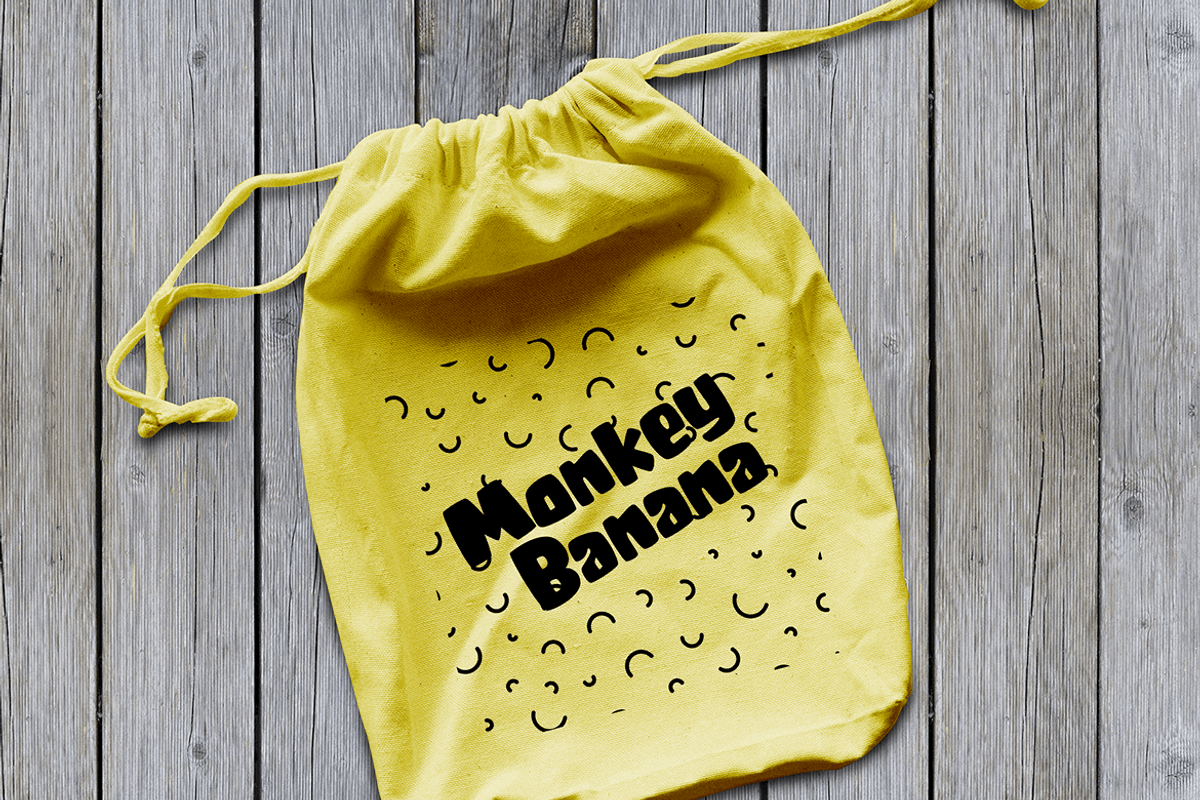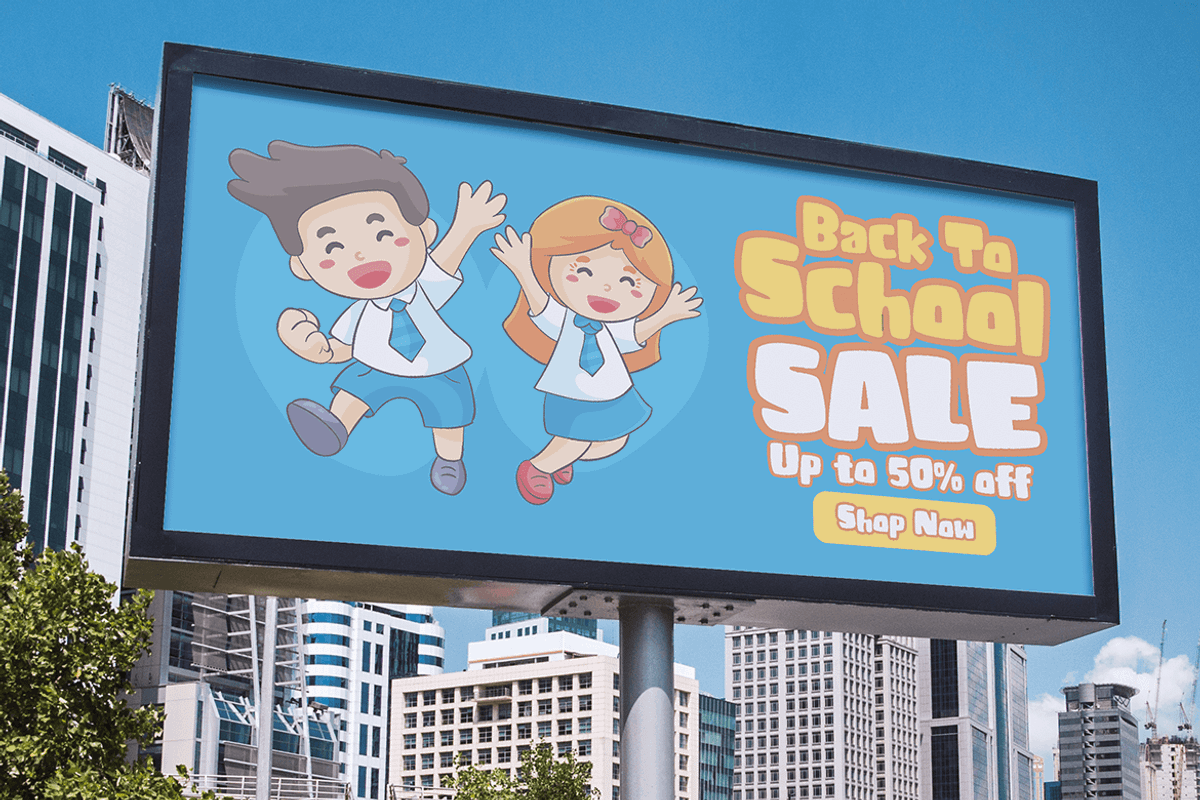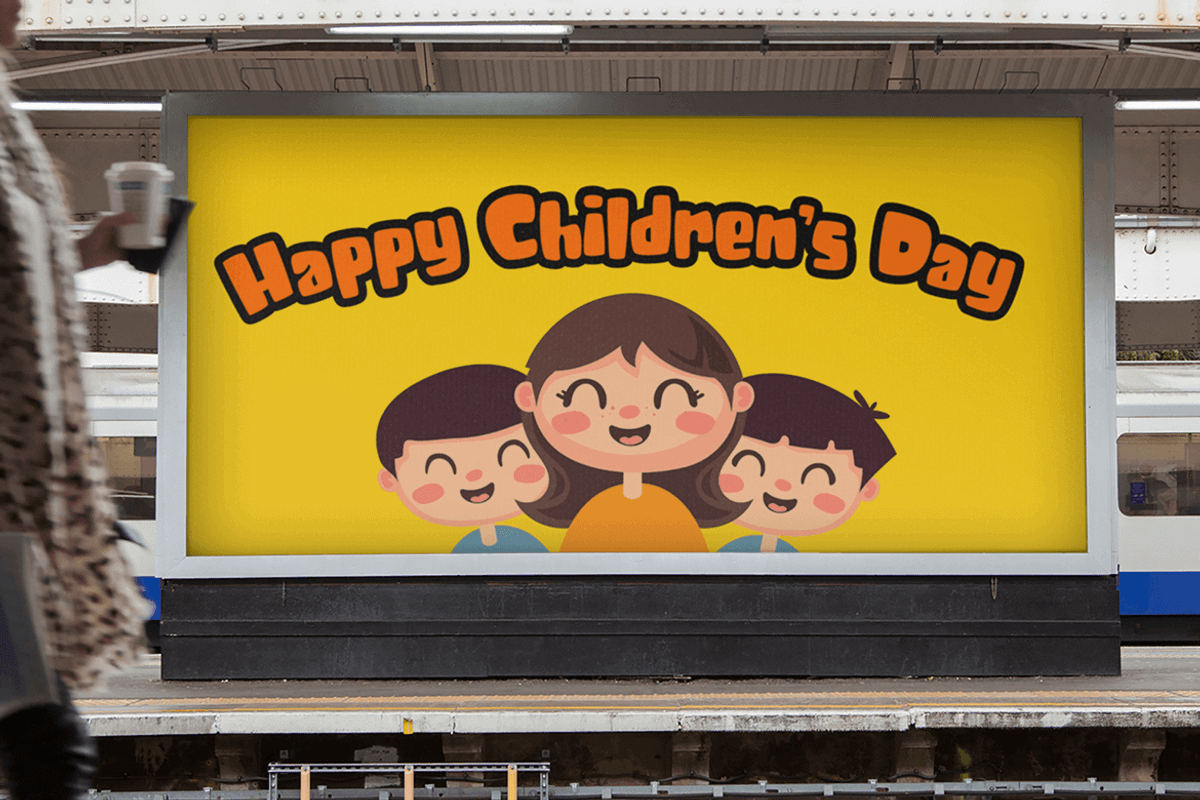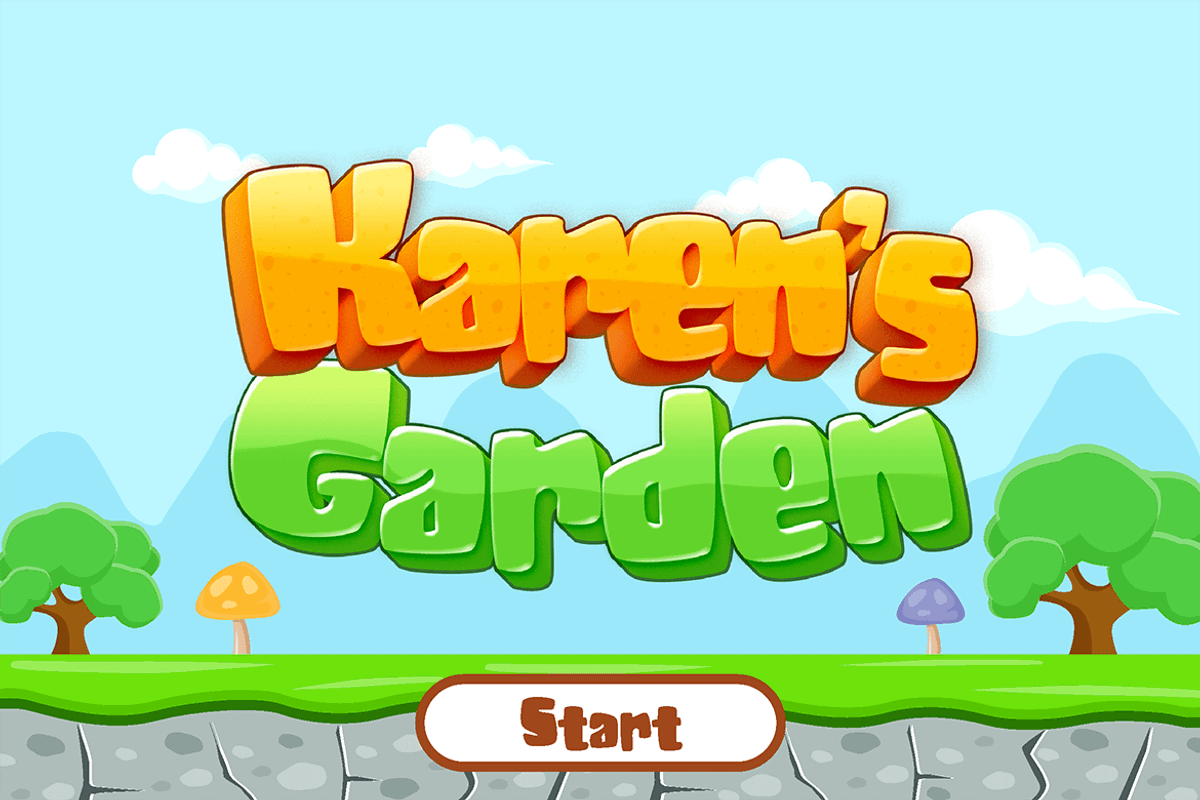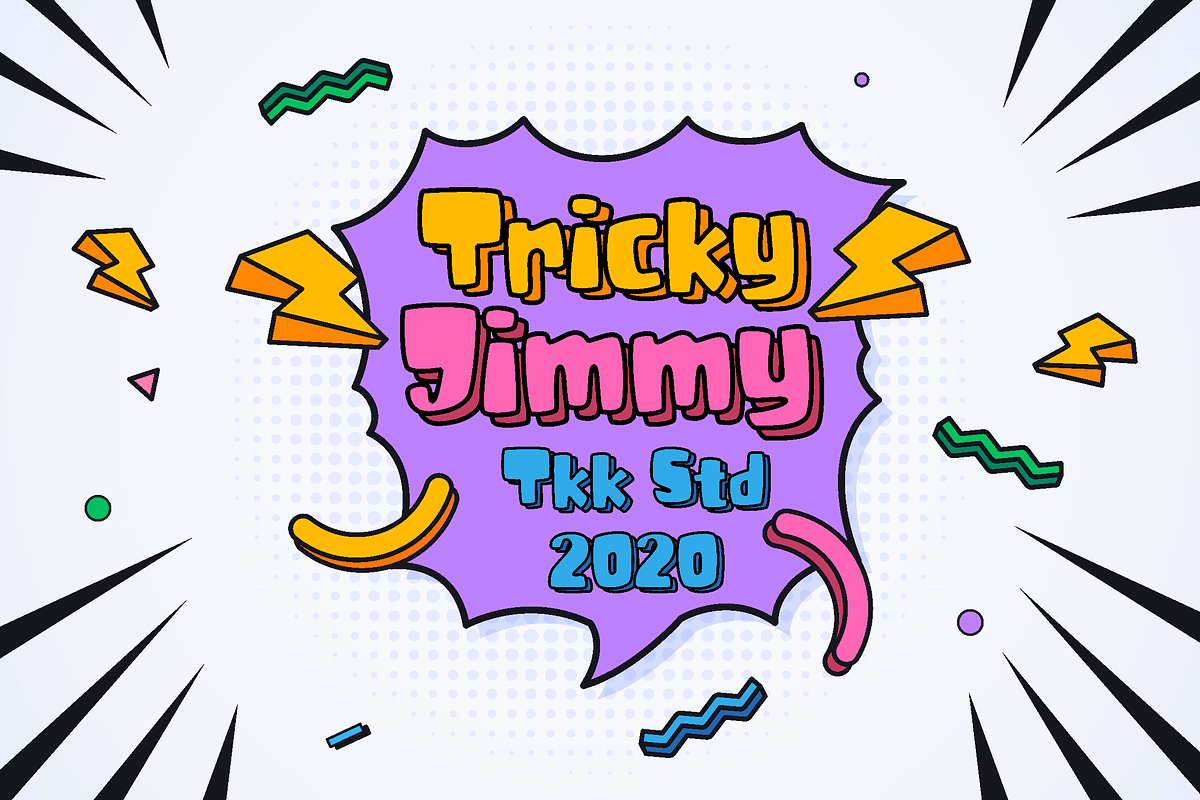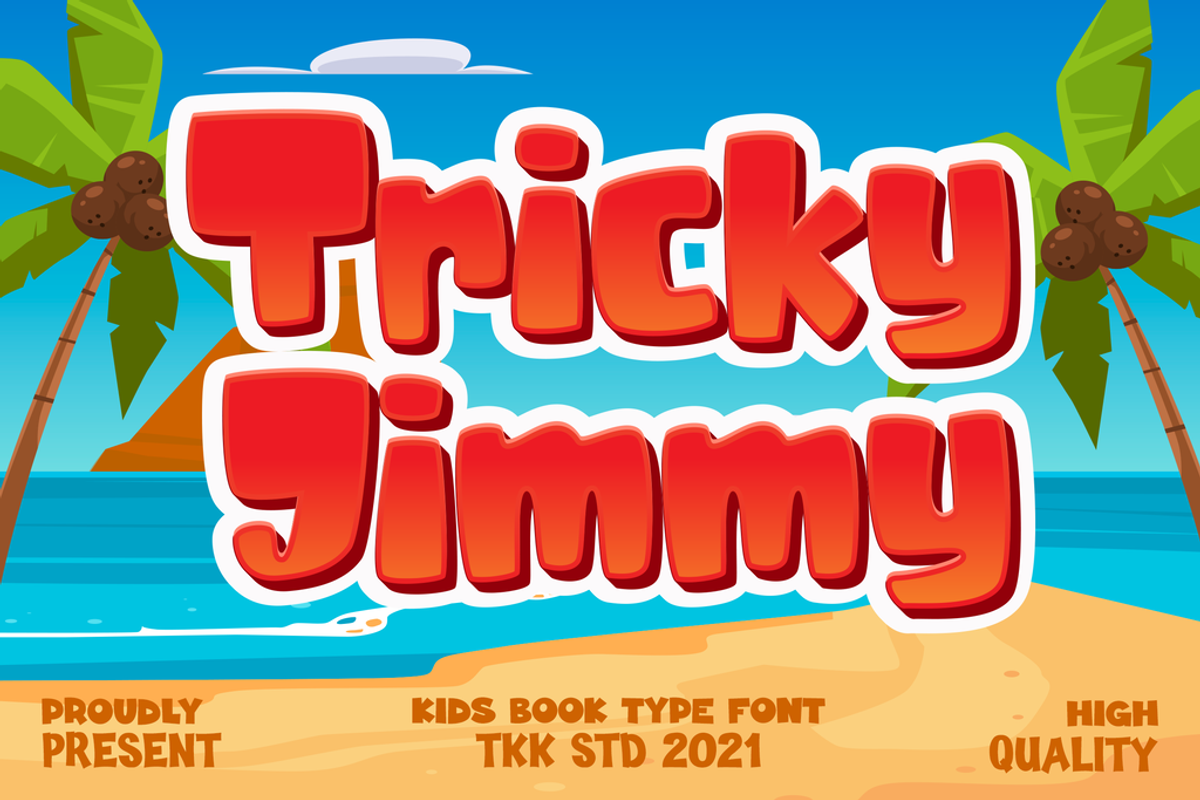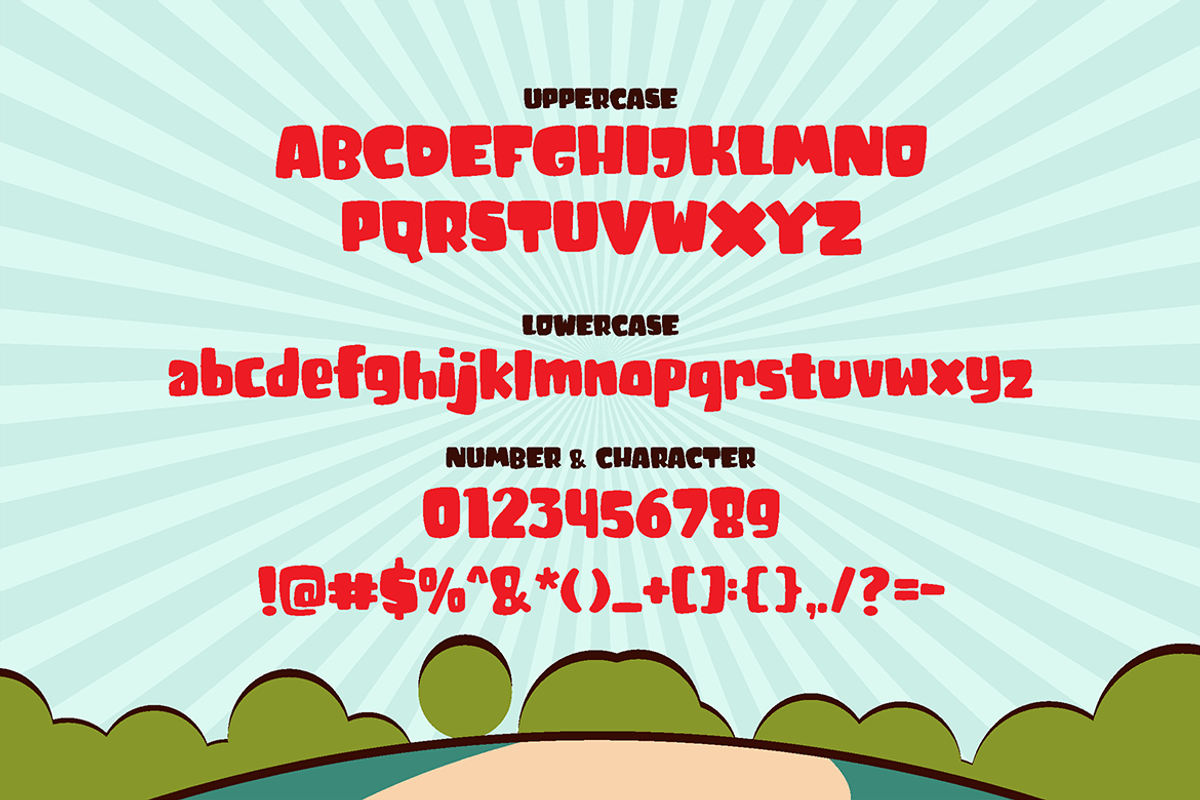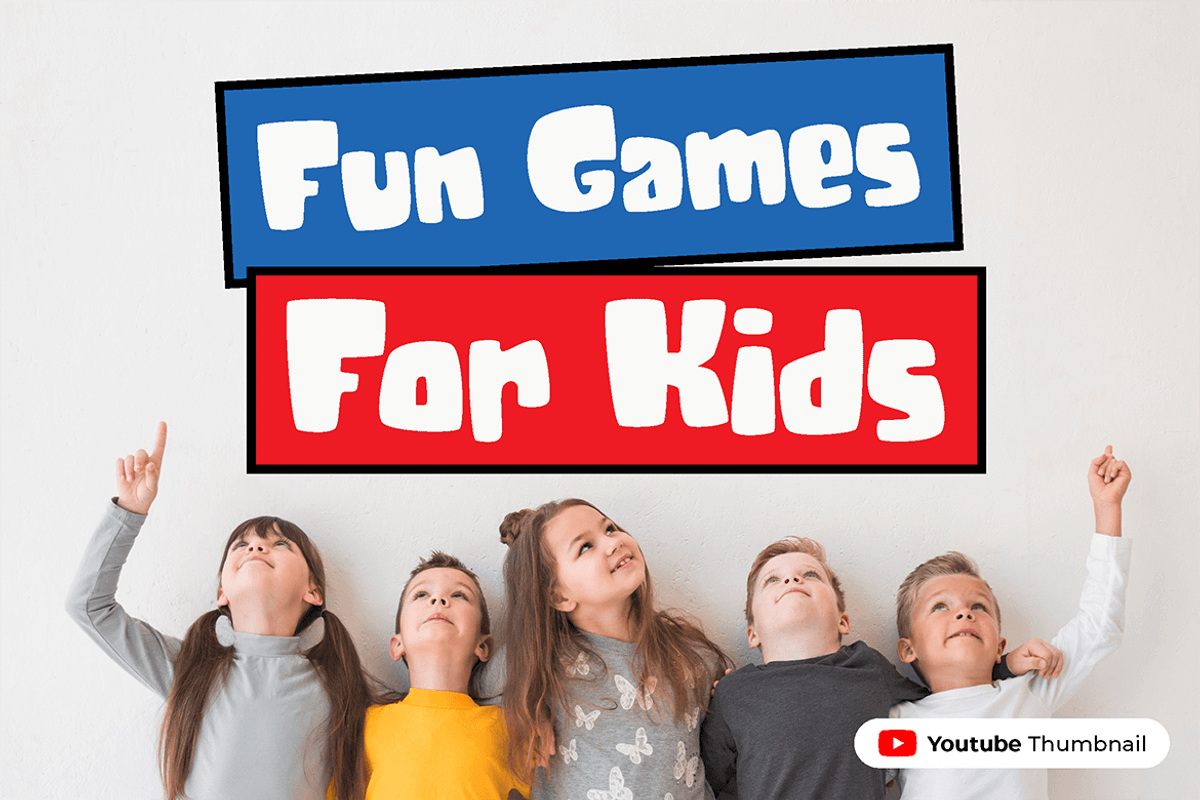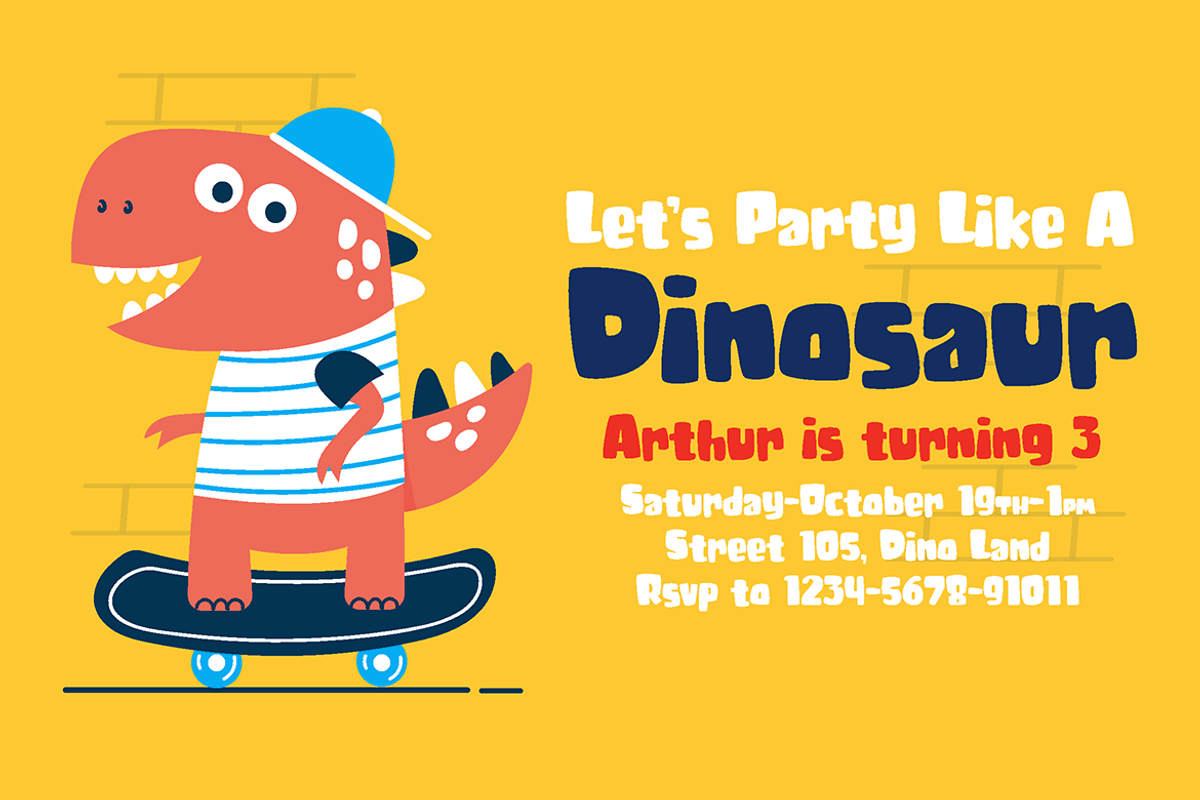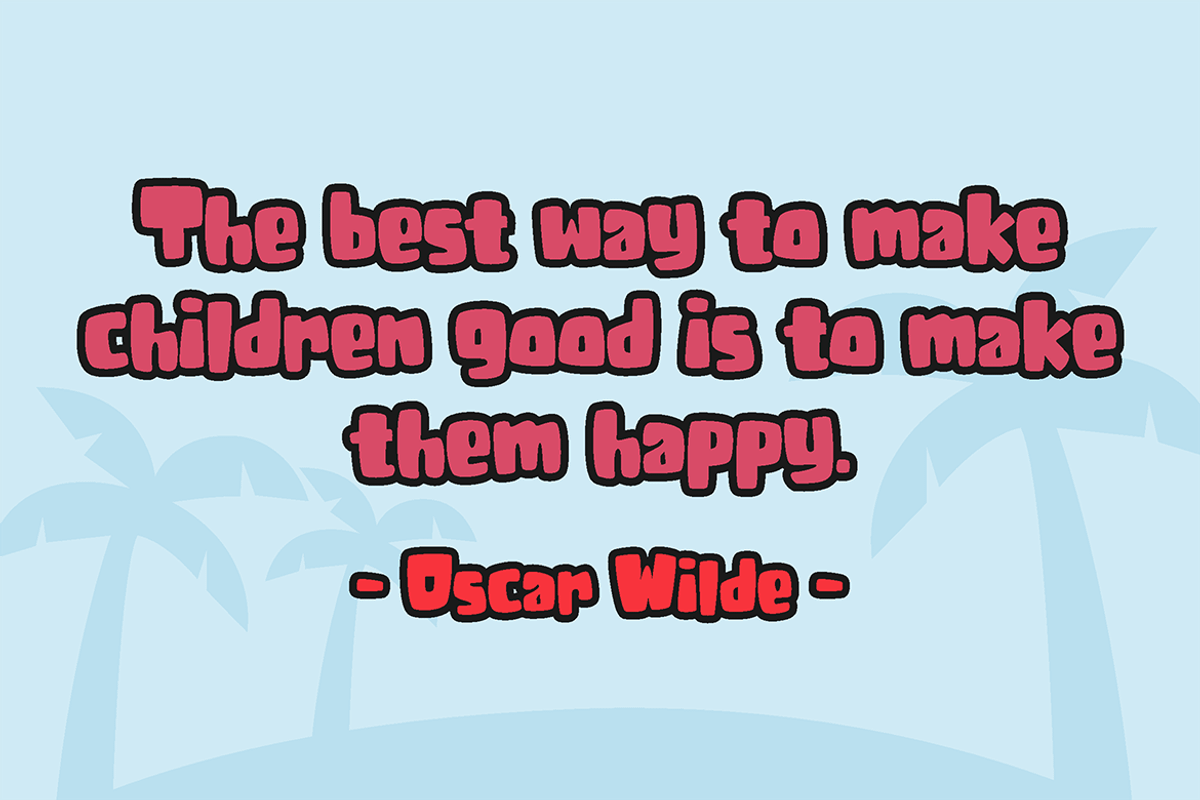
Tricky Jimmy - Comic Font
Tricky Jimmy comic font has a simple fun shape that emphasize the joy and happy feeling in every word it’s written.
Suit perfectly for Online Games, poster, movie title, fast food menu, magazine, youtube covers, youtube thumbnails, social media page covers and so on…